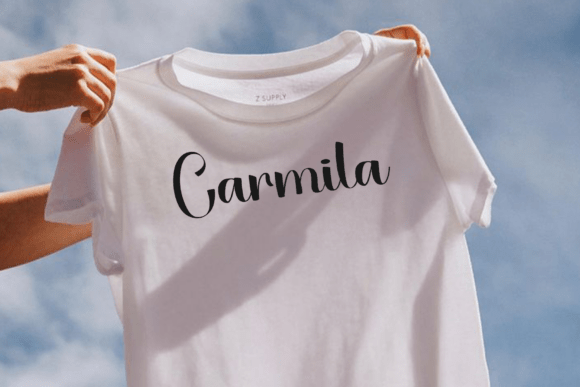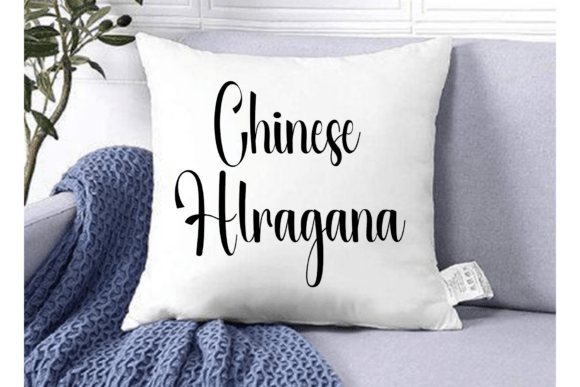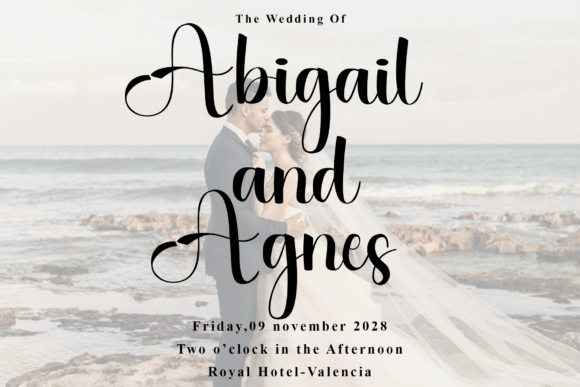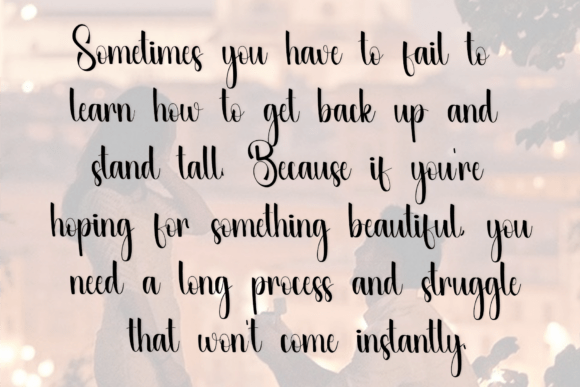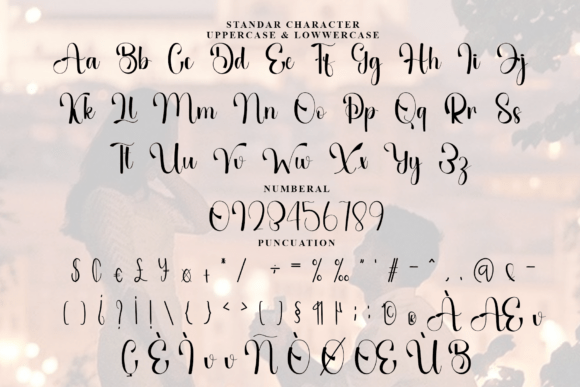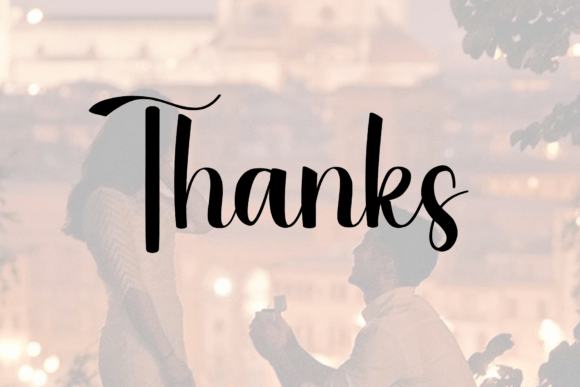
Introducing Comitment Font: Elevate Your Designs with a Sophisticated Autumnal Voice
In the world of typography, a font can make all the difference in conveying a specific tone or aesthetic. For designers and crafters seeking to infuse their projects with a unique and professional autumnal visual voice, Comitment Font is an exceptional choice. This sophisticated and rhythmic script font is part of a modern handwritten collection, boasting high-contrast strokes, elegant letterforms, and a distinctive character that sets it apart from other fonts.
Characteristics of Comitment Font
Comitment Font features thick, grounded downstrokes and delicate hairline connectors, creating a beautiful contrast that adds depth and visual interest to any design. The typeface is characterized by vertically elongated letterforms, which contribute to its refined and elegant appearance. The font’s graceful, looping ascenders are reminiscent of high-end inkwork, lending a touch of sophistication and luxury to your designs.
Perfect for Autumn-Themed Designs
As a font specifically designed to evoke an autumnal visual voice, Comitment Font is an excellent choice for seasonal marketing campaigns, artisanal food packaging, and boutique event invitations. Its unique blend of elegance and playfulness makes it an ideal fit for designers looking to create eye-catching and memorable designs that capture the essence of the fall season.
Applications for Comitment Font
Comitment Font is a versatile typeface that can be used in a variety of design applications, including:
- Seasonal Autumn Marketing: Create eye-catching advertisements, social media graphics, and promotional materials that showcase your brand’s autumnal spirit.
- Artisanal Food Packaging: Add a touch of sophistication and elegance to your food packaging with Comitment Font, perfect for seasonal products or limited-edition releases.
- Boutique Event Invitations: Make a lasting impression with beautifully designed event invitations that feature Comitment Font’s elegant and refined letterforms.
- Sophisticated Editorial Headers: Elevate your editorial designs, such as magazine articles or blog posts, with Comitment Font’s luxurious and high-end aesthetic.
Why Choose Comitment Font?
With Comitment Font, you can:
- Stand out from the crowd: Comitment Font’s unique and distinctive character ensures that your designs will grab attention and leave a lasting impression.
- Convey a sense of sophistication: The font’s elegant letterforms and high-contrast strokes evoke a sense of luxury and refinement, perfect for high-end brands or designs.
- Save time and effort: Comitment Font is a high-quality, professionally designed typeface that saves you time and effort in creating custom lettering or handwriting.
Tips for Using Comitment Font
To get the most out of Comitment Font, consider the following tips:
- Experiment with font sizes: Comitment Font looks stunning in a variety of font sizes, from large headings to smaller body text.
- Pair with complementary fonts: Combine Comitment Font with other fonts that complement its elegant and refined aesthetic, such as serif or sans-serif fonts.
- Play with color: Comitment Font looks beautiful in a range of autumnal colors, from warm golden hues to rich berry tones.
In conclusion, Comitment Font is an exceptional choice for designers and crafters seeking to add a touch of sophistication and elegance to their autumn-themed designs. With its unique and professional visual voice, high-contrast strokes, and elegant letterforms, this font is sure to elevate your designs and leave a lasting impression.